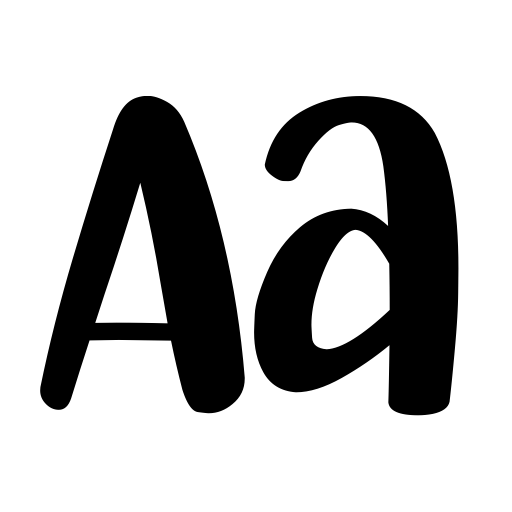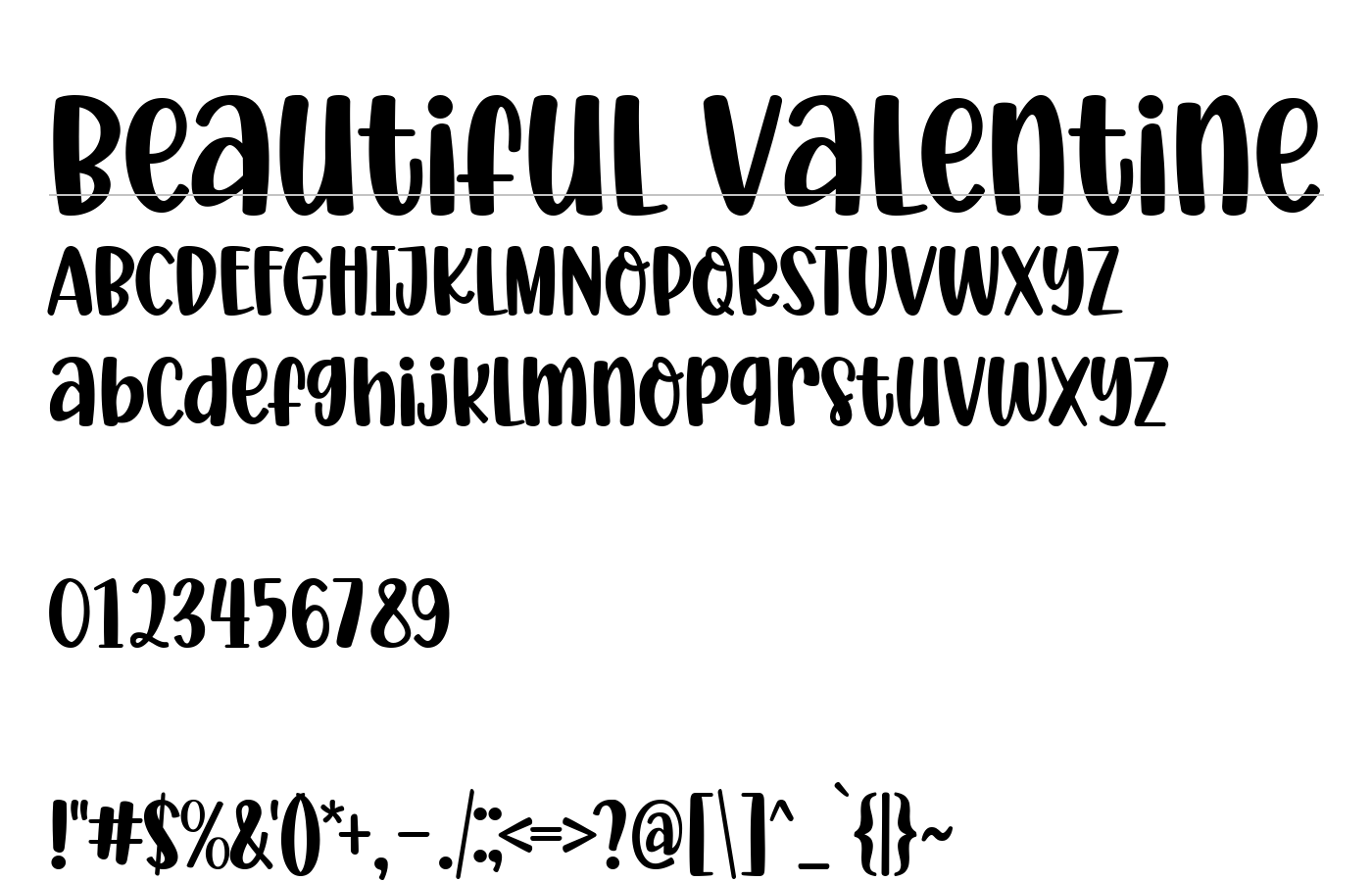
Beautiful Valentine is a playful and friendly sans serif font with a casual handwritten feel, featuring rounded shapes and consistent medium weight. Its tall x-height and lively letterforms make it approachable and easy to read, perfect for fun, informal designs like greeting cards, children's projects, and creative branding. This font brings a warm, charming personality that suits joyful and lighthearted moods.
Beautiful Valentine Font
About Beautiful Valentine Font